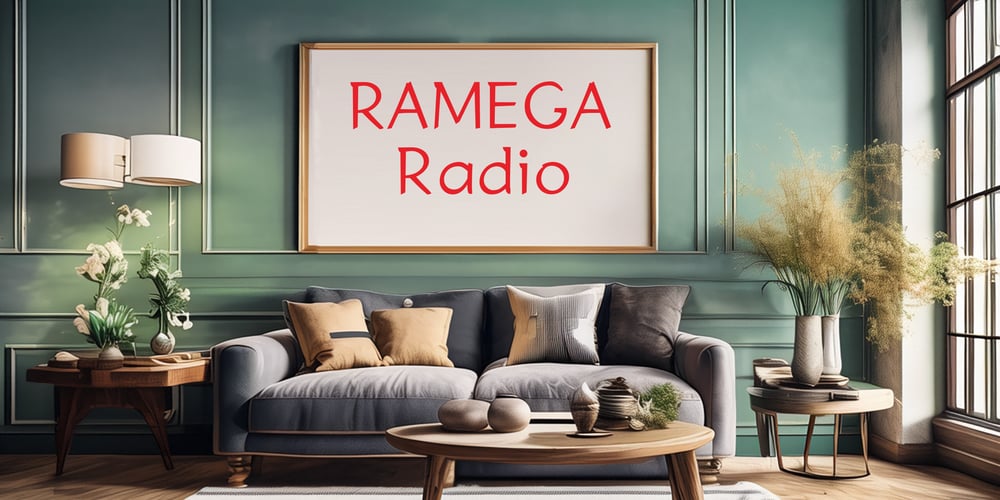
Ramega Radio
Ramega Radio font
Ramega Radio Font Family was designed by Apollo Zhang and published by Ramega. Ramega Radio contains 1 styles and family package options. Introducing “Ramega Radio” โ€“ a fusion of robust serif foundations and subtle handwritten touches, this typeface is designed to resonate just like the airwaves of a radio. With a name that signifies its ambition to carry messages far and wide, “Ramega Radio” stands as a bold, yet personal seriffed addition to any design arsenal.Blending the authoritative presence of a slab serif with the subtle intimacy of human touch, “Ramega Radio” is perfect for those seeking a typographic balance between classic structure and unique personality. At its core, it retains the strong and clear readability of a blackletter typeface, whilst its gentle curves and slightly varied stroke widths inject an element of the informal, reminiscent of a personalized script.Ideal for editorial headlines, branding, advertising, and anywhere a touch of humanity is welcomed within professional constraints, “Ramega Radio” offers versatility and charm. Its characters proudly exhibit a heritage look, yet the casual flair found in its serifs and terminals gives it a contemporary edge, making it indispensable for modern communication.Whether you’re crafting a visual identity that needs to stand out, setting the tone for a thought-provoking article, or designing an attention-grabbing advertisement, “Ramega Radio” will transmit your message with clarity and style. Bring your words to life with a font that broadcasts character and sophistication in equal measure โ€“ choose “Ramega Radio” for your next design project.